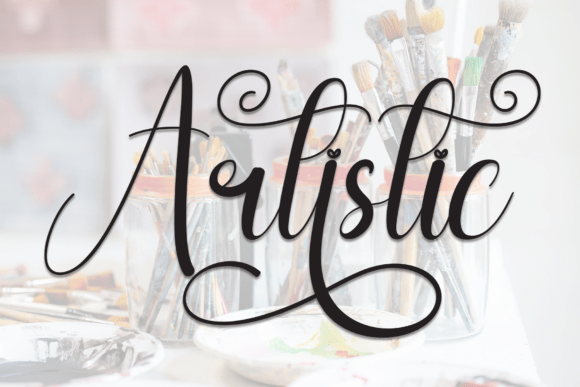
The Perfect Brushstroke: Unlocking the Power of Artistic Font
Have you ever been brainstorming a new project, and suddenly, a spark of creativity hits you? The ideas start flowing, and you envision the perfect design, with every element working together in harmony. For designers, those moments are priceless – and the right font can make all the difference. That’s where Artistic Font comes in, a stunning handwritten script that adds a touch of elegance and sophistication to any design.
With its smooth, flowing strokes, Artistic Font is perfect for branding, invitations, and creative projects that demand a personal, artistic touch. As a designer, you’ll appreciate the versatility and charm of this typeface, which strikes a beautiful balance between classic and modern. Whether you’re working on a high-end luxury brand or a whimsical wedding invitation, Artistic Font is the perfect choice to elevate your design and leave a lasting impression.
Key Features of Artistic Font
- Unique Characteristics: The font features a unique, hand-drawn aesthetic with intricate details and flourishes, adding a touch of elegance and sophistication to any design.
Artistic Font Review
I recently had the chance to work with the Artistic Font, and here’s my honest review.
The Artistic Font is indeed artistic, and its unique design adds a touch of elegance to any project. I particularly love its:
- Delicate lines and curves, which create a sense of sophistication.
- Playful flourishes, which add a touch of whimsy and fun.
- Excellent legibility, even at smaller font sizes.
While the Artistic Font is beautiful, it does have some limitations:
- It may not be the best choice for body text, as it can be a bit too ornate for larger blocks of text.
- Some characters may not render correctly in certain font sizes or resolutions.
Overall, I think the Artistic Font is a great choice for headings, titles, or other design elements where you want to add a touch of flair. While it may not be perfect, its unique design and excellent legibility make it a great addition to any designer’s toolkit.
Tips for Getting the Most Out of Artistic Font
Artistic Font is perfect for creating visually appealing headings and titles. To get the most out of it, use it sparingly and in combination with other fonts to create a balanced design.
Experiment with different font sizes, colors, and styles to create a unique look that suits your brand or project.
Artistic Font is ideal for:
- Editorials and publications
- Marketing materials and advertisements